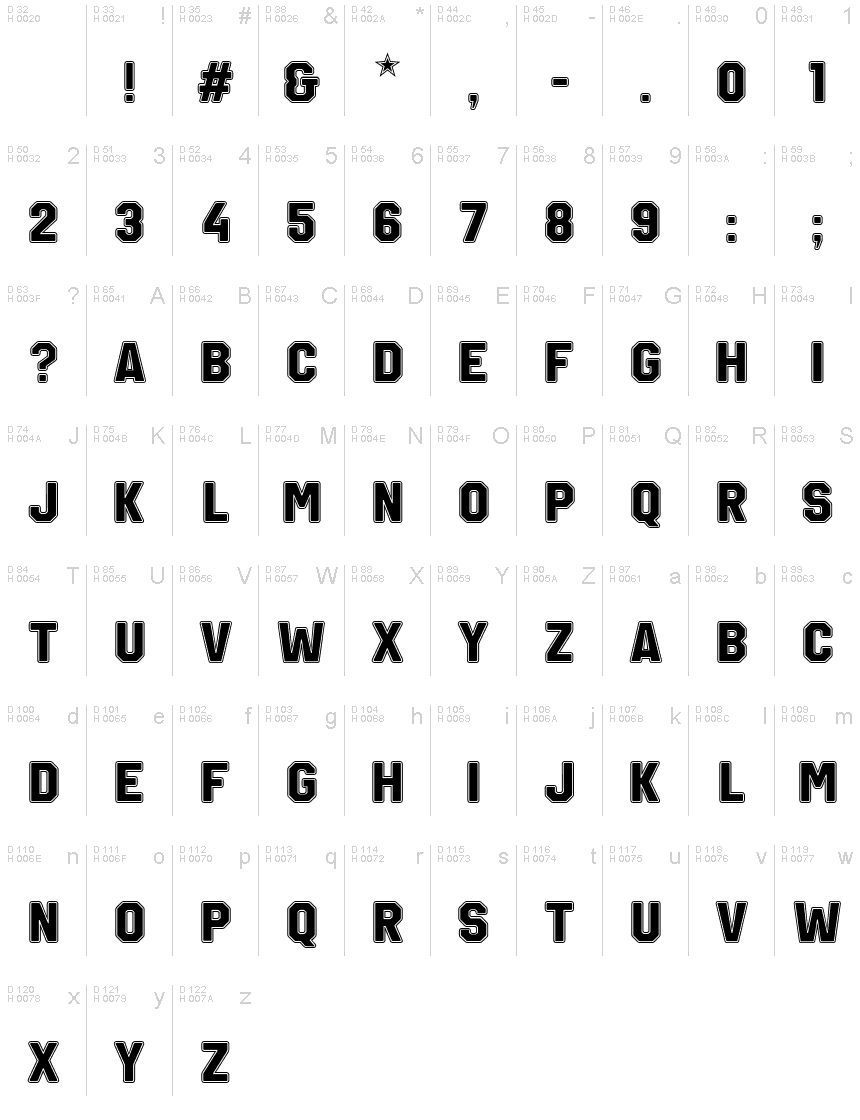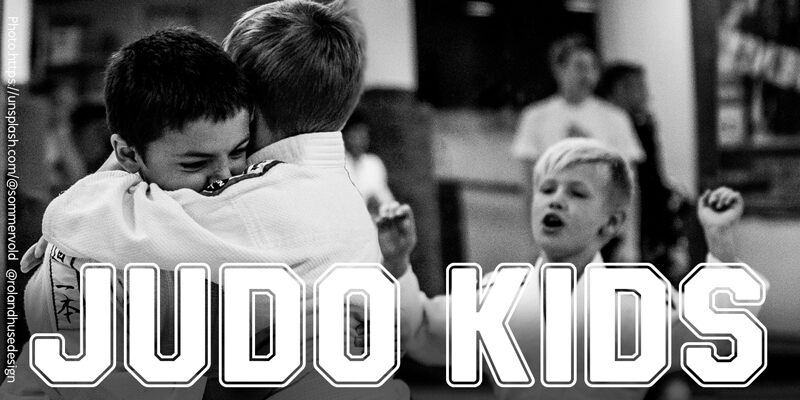
Judo Kids Demo Regular
This is the demo version of Judo Kids, an all caps, bold and outlined college fonts. Free for personal use only. For commercial use please purchase a license at rolandhuse.com. If any question, or request, please dont hesitate to contact at rolandhuse.com